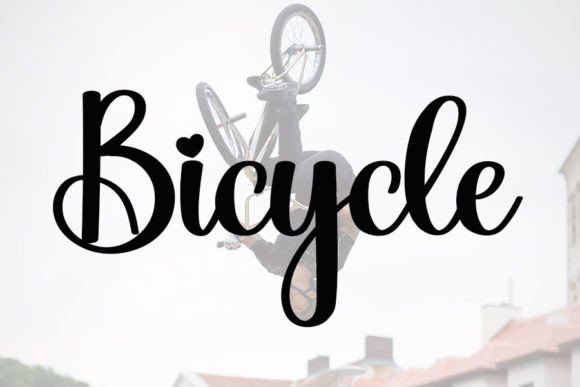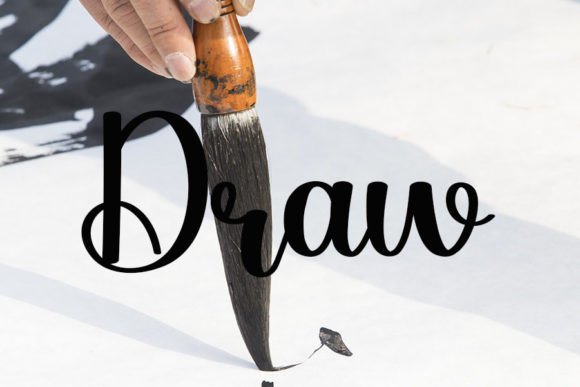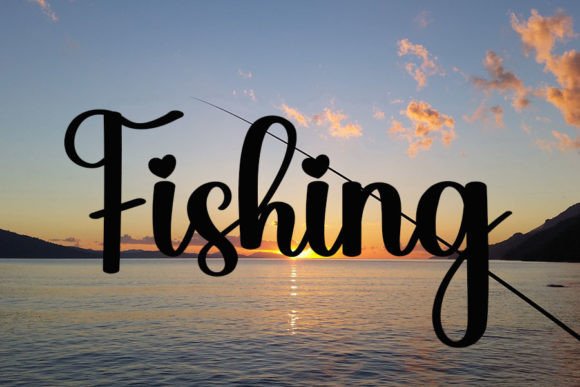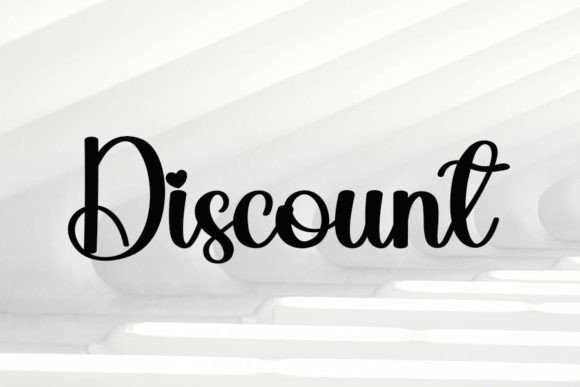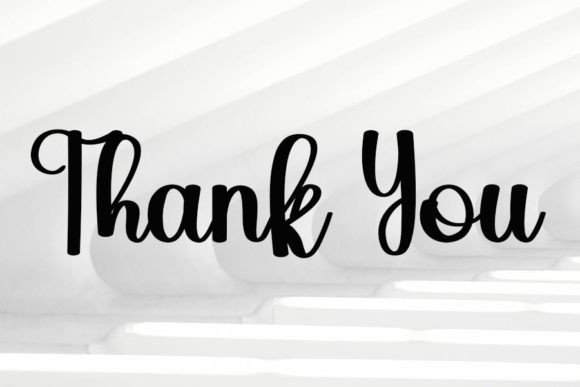
Introducing Action Font: Elevate Your Designs with Elegance and Timeless Style
Are you on the hunt for a font that adds a touch of sophistication and elegance to your designs? Look no further than Action Font, a stunning handwritten font that is sure to capture your heart. With its unique blend of refinement and flair, Action Font is the perfect choice for designers and crafters looking to create spectacular designs that stand out from the crowd.
The Beauty of Action Font
Action Font is a neat and beautiful handwritten font that boasts an elegant touch, making it ideal for a wide range of projects. Its incredibly distinct and timeless style is sure to fall in love with, and its versatility ensures that it can be used in a variety of contexts, from branding and advertising to packaging and editorial design.
One of the standout features of Action Font is its unique character. Each letter has been carefully crafted to exude a sense of sophistication and refinement, making it perfect for designs that require a touch of luxury. Whether you’re working on a high-end fashion brand or a premium product, Action Font is sure to elevate your design to the next level.
What Makes Action Font So Special?
So, what sets Action Font apart from other fonts on the market? Here are just a few reasons why this font is a cut above the rest:
- Elegant and Refined: Action Font boasts an elegant and refined style that is perfect for designs that require a touch of sophistication.
- Unique Character: Each letter in Action Font has been carefully crafted to exude a sense of uniqueness and personality.
- Timeless Style: Action Font’s timeless style ensures that it will never go out of fashion, making it a great investment for designers and crafters.
- Versatile: Action Font is incredibly versatile, making it perfect for a wide range of projects, from branding and advertising to packaging and editorial design.
How to Use Action Font in Your Designs
Using Action Font in your designs is incredibly easy. Here are a few tips to get you started:
- Pair it with bold colors: Action Font looks stunning when paired with bold, bright colors. Try pairing it with a bold red or blue to create a striking contrast.
- Use it for headlines: Action Font is perfect for headlines and titles. Its elegant and refined style makes it ideal for grabbing attention and adding a touch of sophistication to your design.
- Experiment with textures: Action Font looks great when paired with textures and patterns. Try adding a subtle texture to your design to give it a tactile feel.
Why Designers and Crafters Love Action Font
Designers and crafters love Action Font for a variety of reasons. Here are just a few:
- Easy to read: Action Font is incredibly easy to read, making it perfect for designs that require a clear and concise message.
- Highly versatile: Action Font is incredibly versatile, making it perfect for a wide range of projects and applications.
- Unique style: Action Font’s unique style ensures that your designs will stand out from the crowd and grab attention.
In conclusion, Action Font is a stunning handwritten font that is sure to elevate your designs to the next level. With its elegant and refined style, unique character, and timeless style, it’s the perfect choice for designers and crafters looking to create spectacular designs. Whether you’re working on a branding project, advertising campaign, or editorial design, Action Font is sure to impress. So why wait? Fall in love with Action Font today and start creating designs that are truly unforgettable!